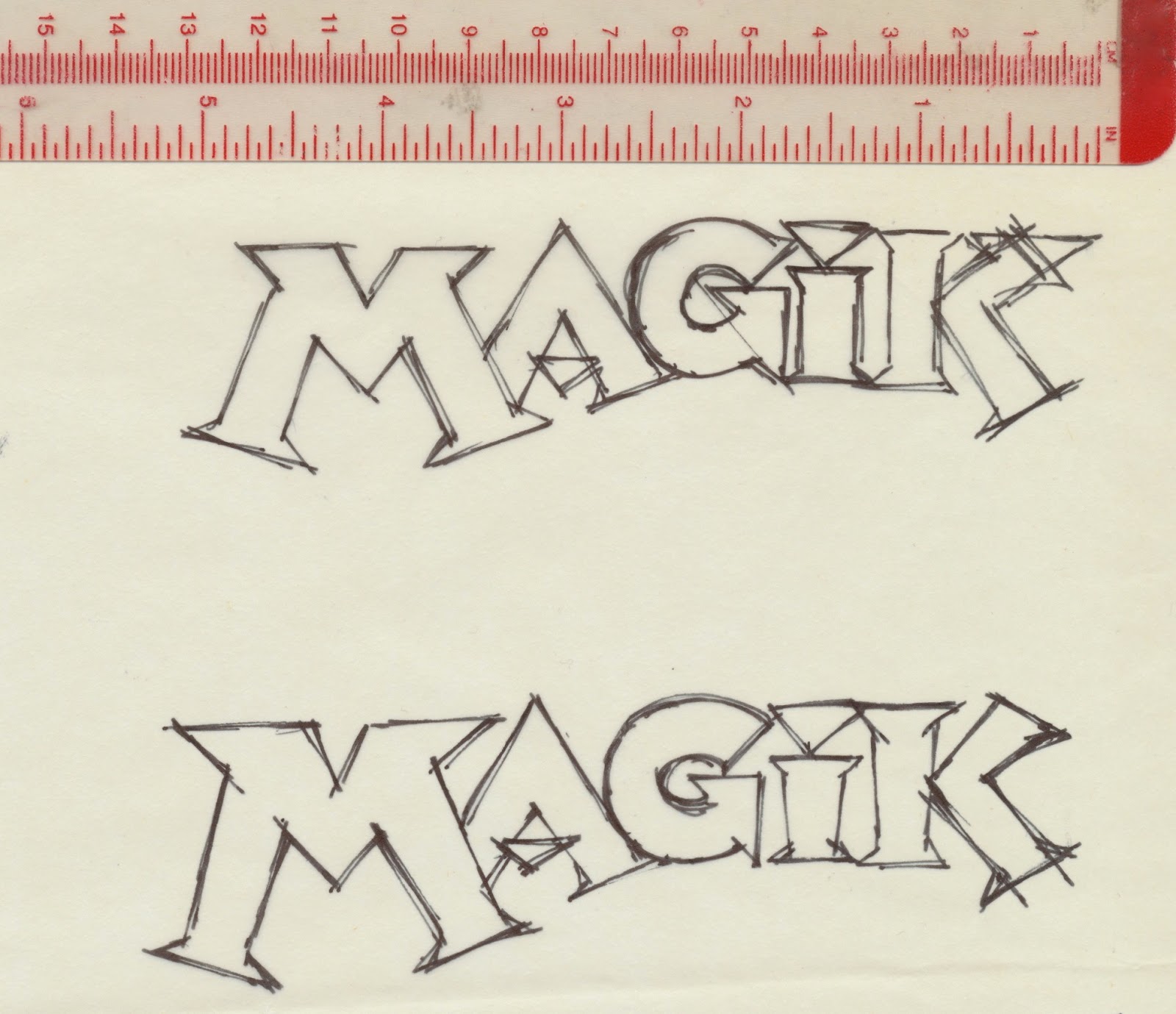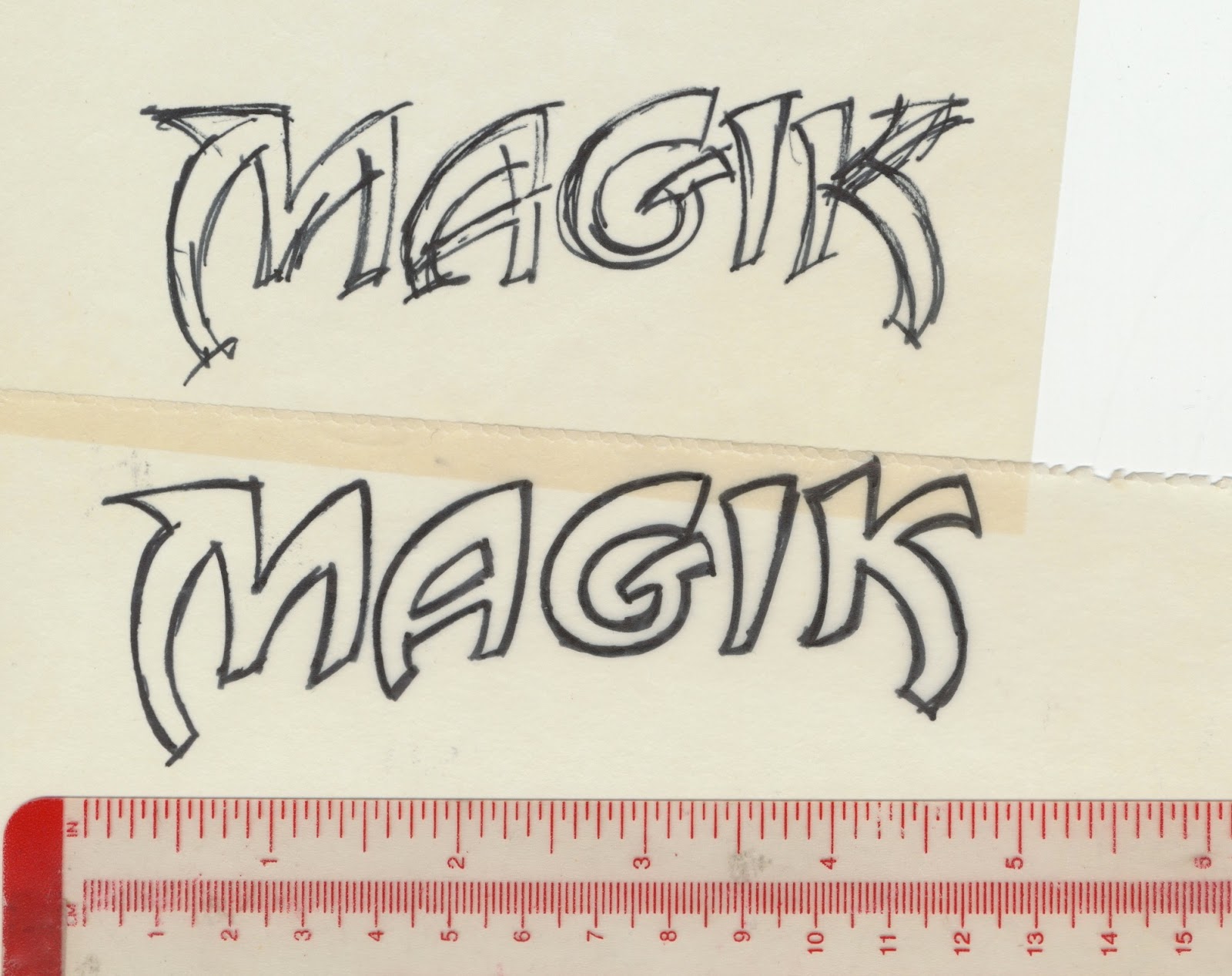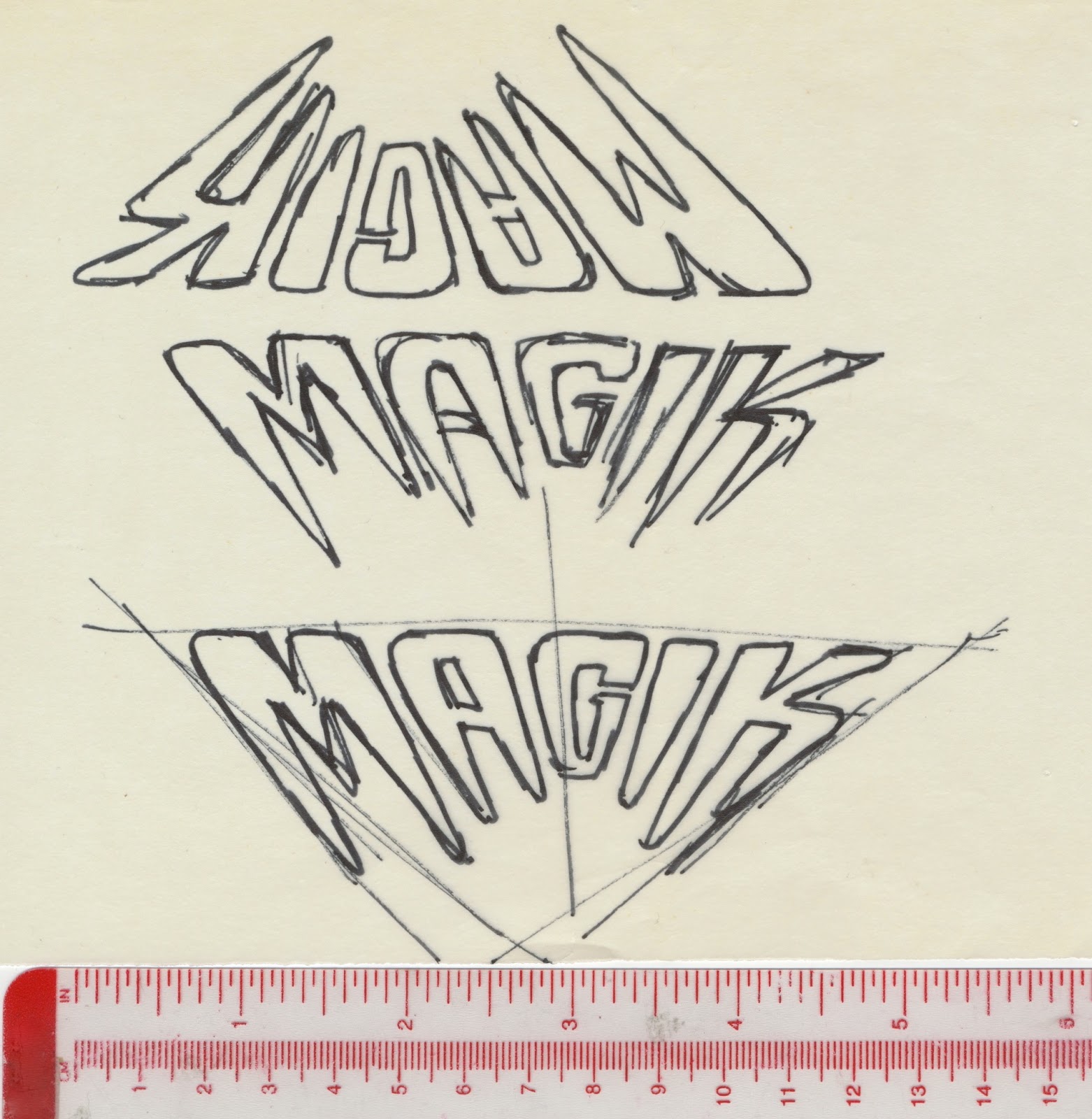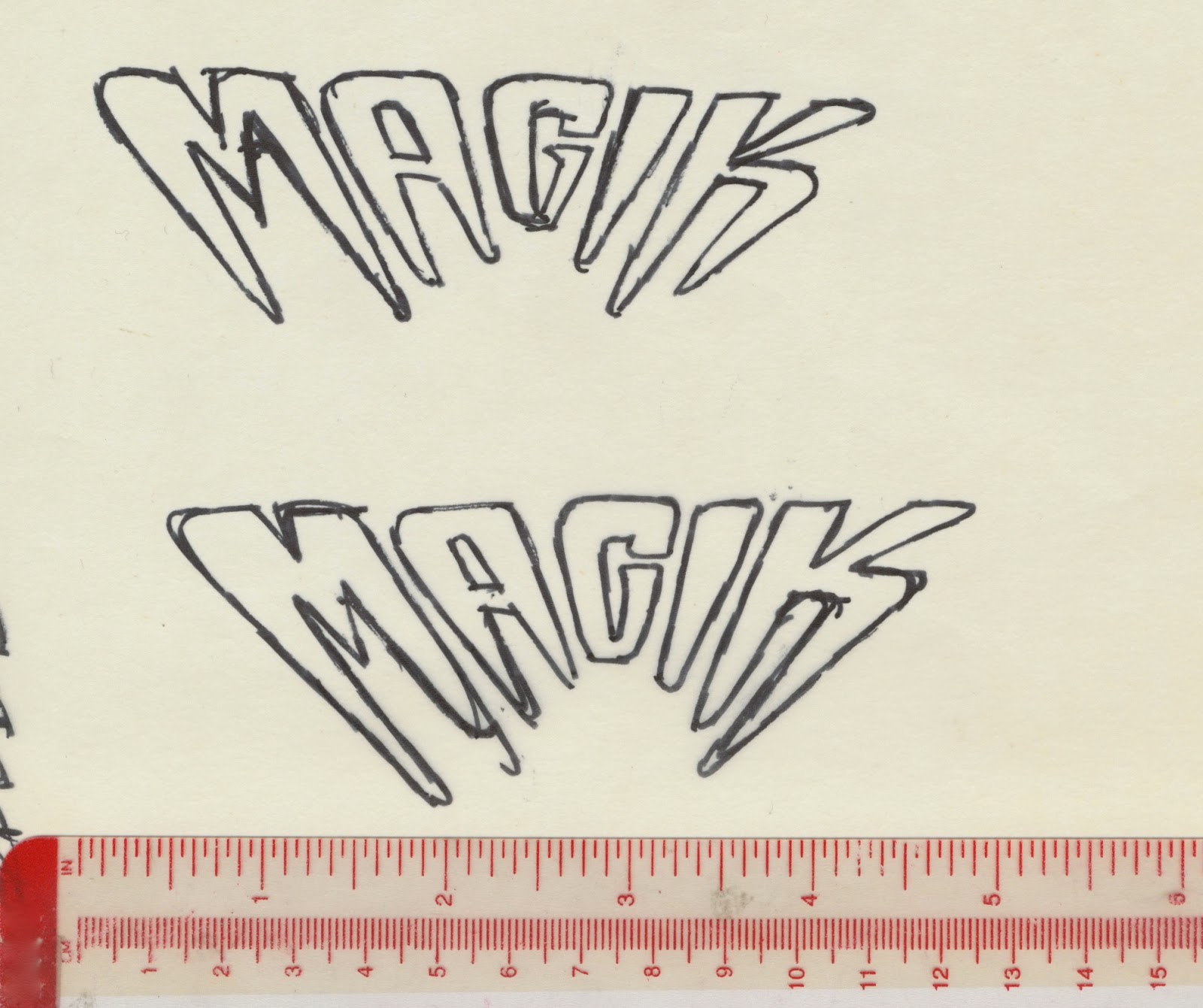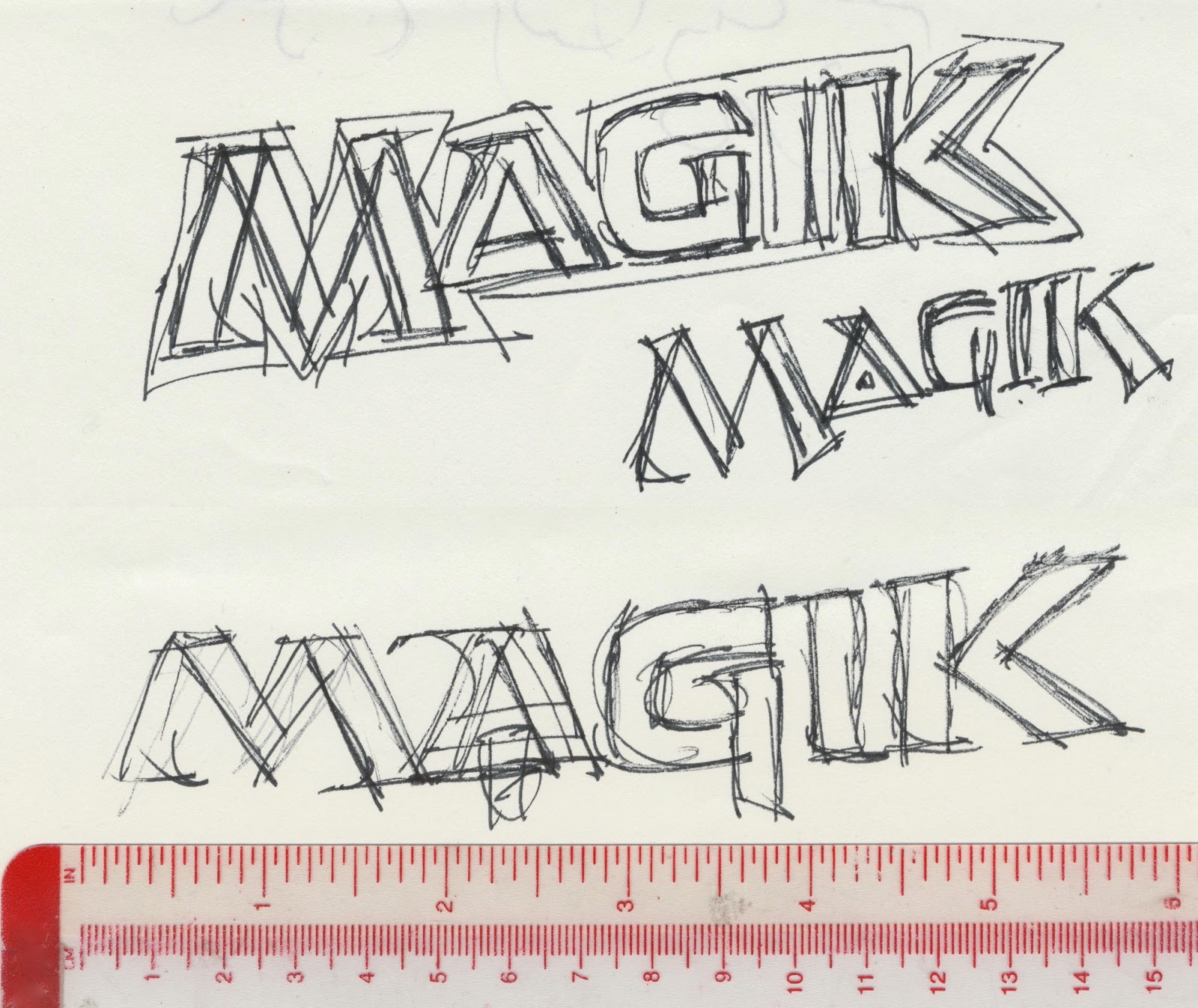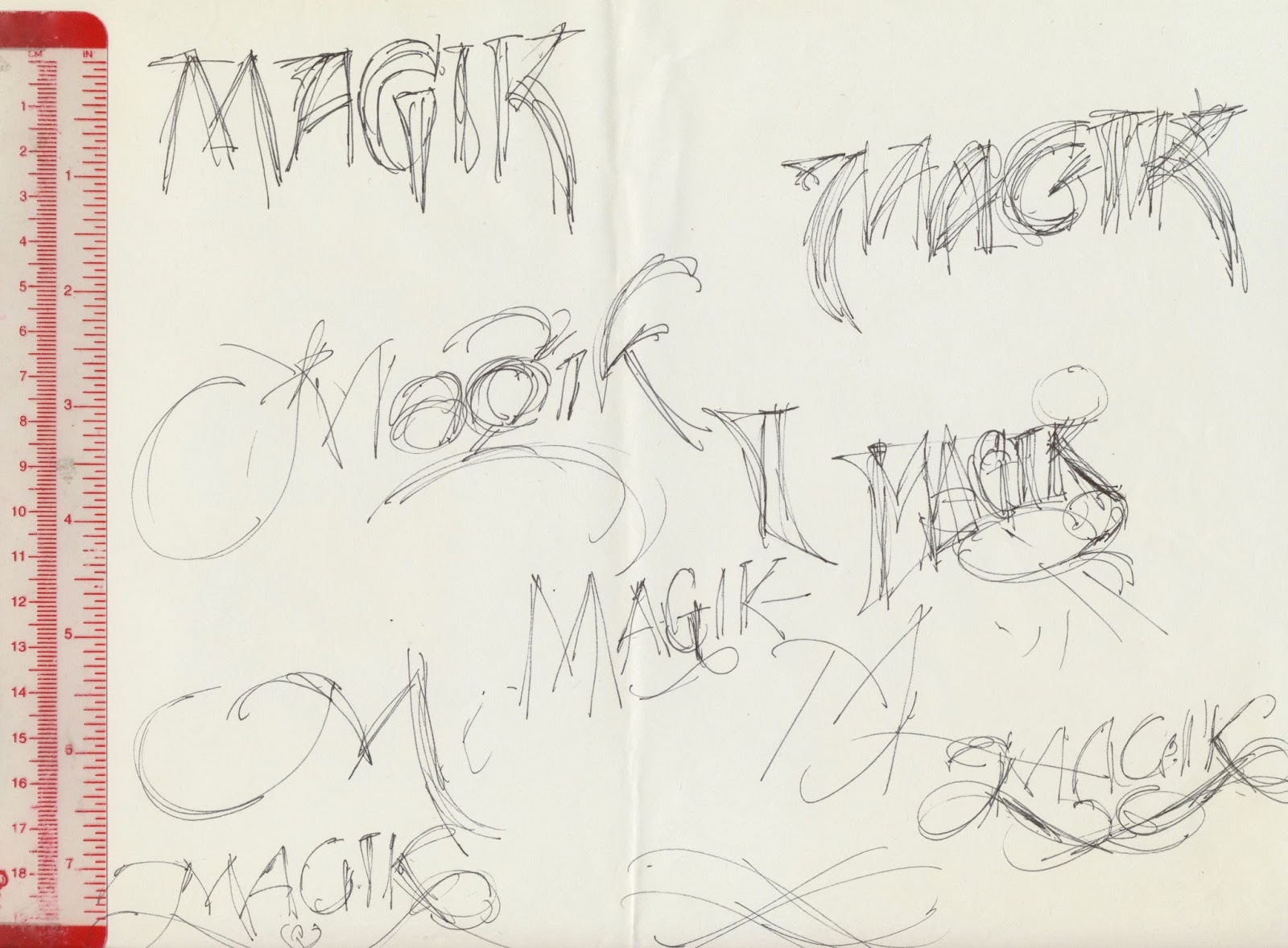
Anatomy of a Logo: Magik
On July 6, 1983, Louise Jones called and said she needed a logo in two days. She added that I could do whatever I want. I accepted and quickly produced a number of sketches and developed a half-dozen of them for presentation. The next day I met Louise at the Marvel office and she picked one. Back at my studio, I made a tight pencil drawing of the logo on tracing paper, Later I positioned the drawing on a light box, then placed a piece of LetraMax 2000 over it. The inked logo was delivered to Louise on July 8.
I don’t have the original art but I did make a same-size photostat of it (above). The letterforms are related to my Were Wolf logo for Neal Adams’ Monsters graphic novel.
Covers of the four-issue mini-series.
The Inland Printer, June 1905
The Inland Printer, July 1905
The Inland Printer, August 1905
The Inland Printer, September 1905 (see December 1904 for postcard link)
The Inland Printer, November 1905 (see December 1904 for postcard link)
The Inland Printer, December 1905 (postcard version is here)
The Inland Printer and The American Printer/The International Printer,
January 1906 (postcard version is here)
The Inland Printer, February 1906 (postcard version is here) and
The American Printer/The International Printer, February 1906 and April 1907
The Inland Printer, March 1906
The American Printer/The International Printer, March 1906
The Inland Printer, April 1906 (postcard version is here)
The American Printer/The International Printer, April 1906
The Inland Printer, May 1906
The American Printer/The International Printer, May 1906
The Inland Printer, June 1906
The American Printer/The International Printer, June 1906
The Inland Printer, July 1906
The American Printer/The International Printer, July 1906
The Inland Printer, August 1906
The American Printer/The International Printer, August 1906
The Inland Printer, September 1906
The Inland Printer, November 1906
The Inland Printer, February 1907
The American Printer/The International Printer, March 1907
The Inland Printer, April 1907 (see February 1906)
The American Printer/The International Printer, April 1907
(see October 1903)
The American Printer/The International Printer, May 1907
The Inland Printer, October 1907
The Inland Printer, July 1908 (see March 1905)
The Inland Printer, August 1908 (see July 1905)
The Inland Printer, December 1908
(complete image is here; see November 1903)
Detail of a printed piece is here. More postcards are here.
Augustus Ludwig Jansson was born in Boston, Massachusetts on April 17, 1866, according to the Boston birth records at Ancestry.com.
Jansson produced artwork for the color comic section of the Boston Herald Sunday newspaper. “In Plaiddie Land” and “Moon Rhymes” appeared in 1901. Three years later in 1904, the following comics were published: “New England Mother Goose”, “Odd Folks”, “The Old Veteran’s Story”, “The Boston Tea Party” (You can view it at the Sunday Press website, move the cursor over “Sample Pages”, click “Society Is Nix”, then click arrow in the right margin.), and “The Battle of Bunker Hill”.
The Stripper’s Guide and the Davistown Museum have samples of Jansson’s work including tableware for Wedgwood. Jansson’s art reminds me of some of Seymour Chwast’s illustrations.